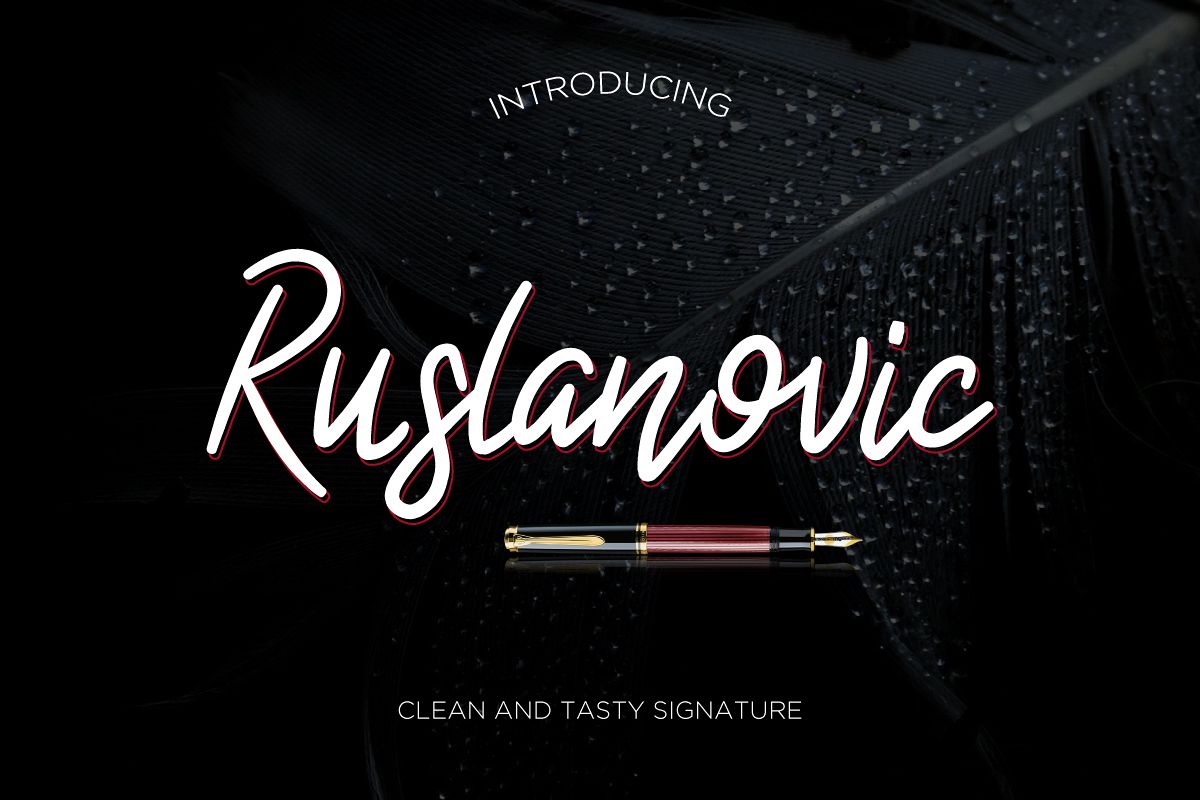
Ruslanovic
Introducing!
Ruslanovic Signature Typeface - a font that is very fresh and unique style handmade. Ruslanovic Signature Typeface is perfectly suited to logo, stationery, poster, apparel, branding, wedding invitation, card, tagline, layout design, and much more !!